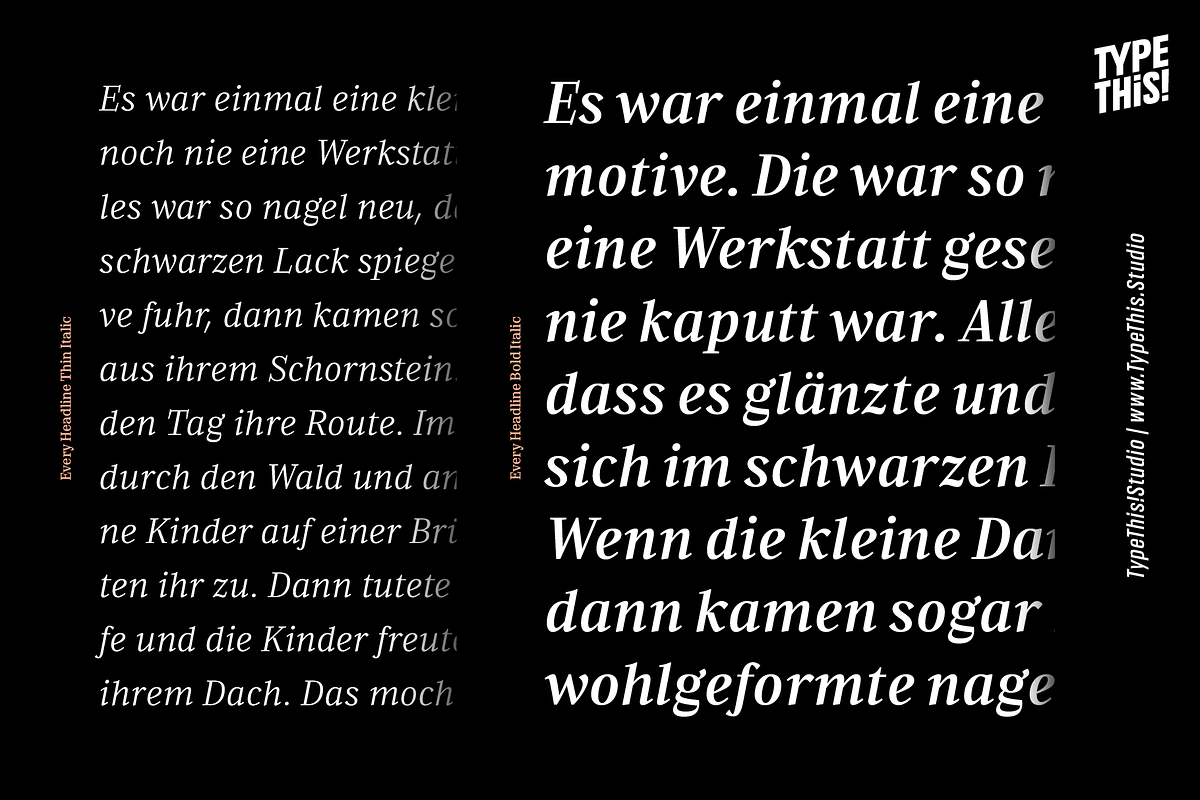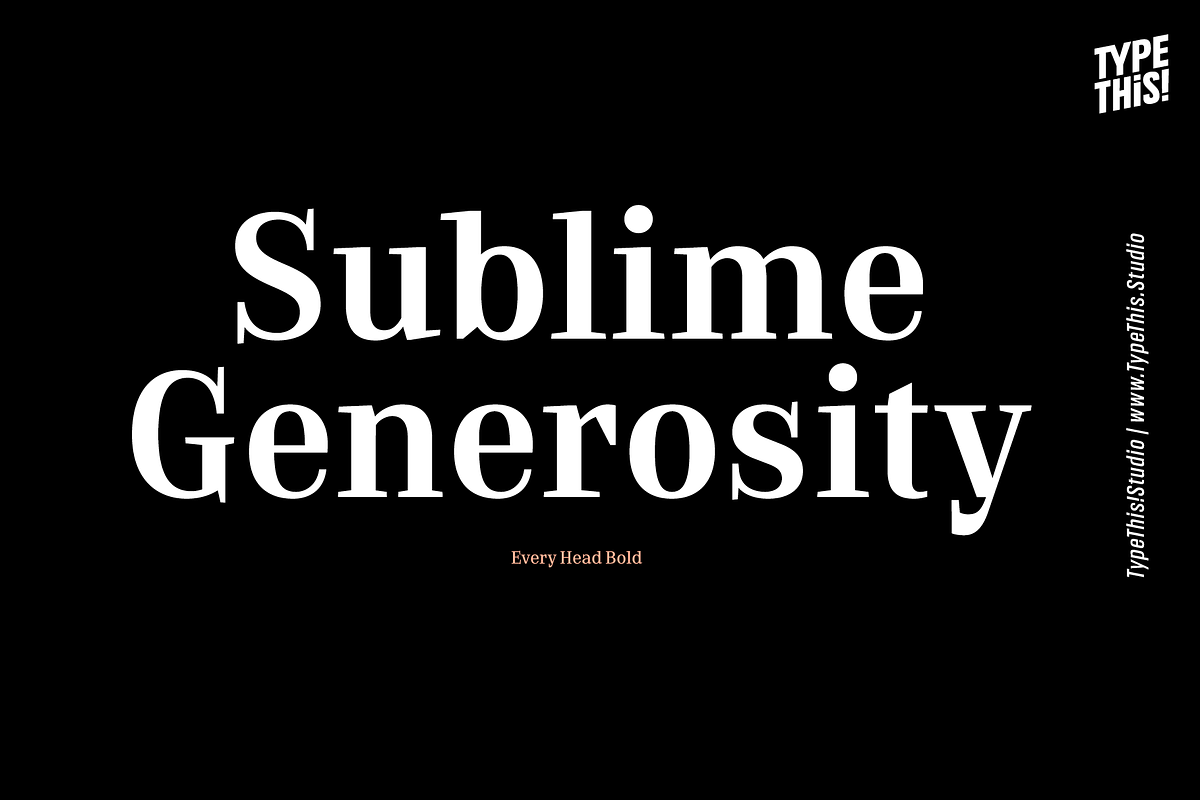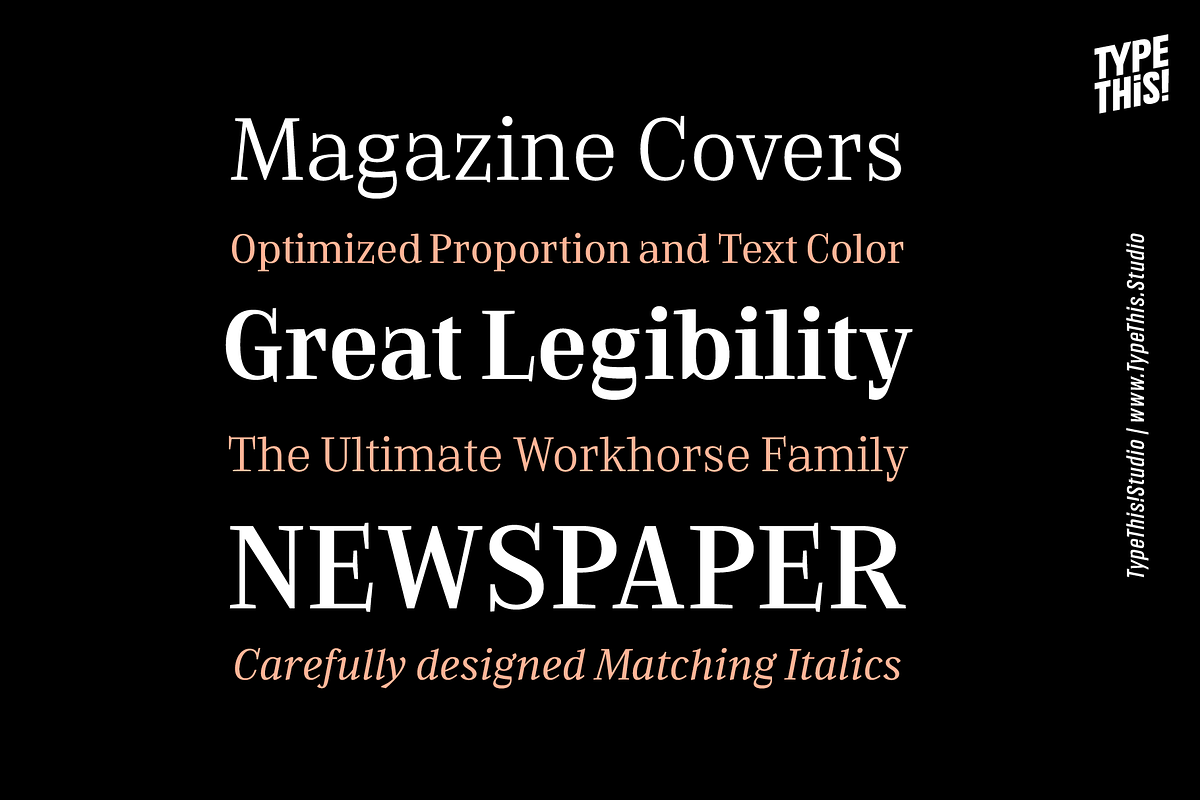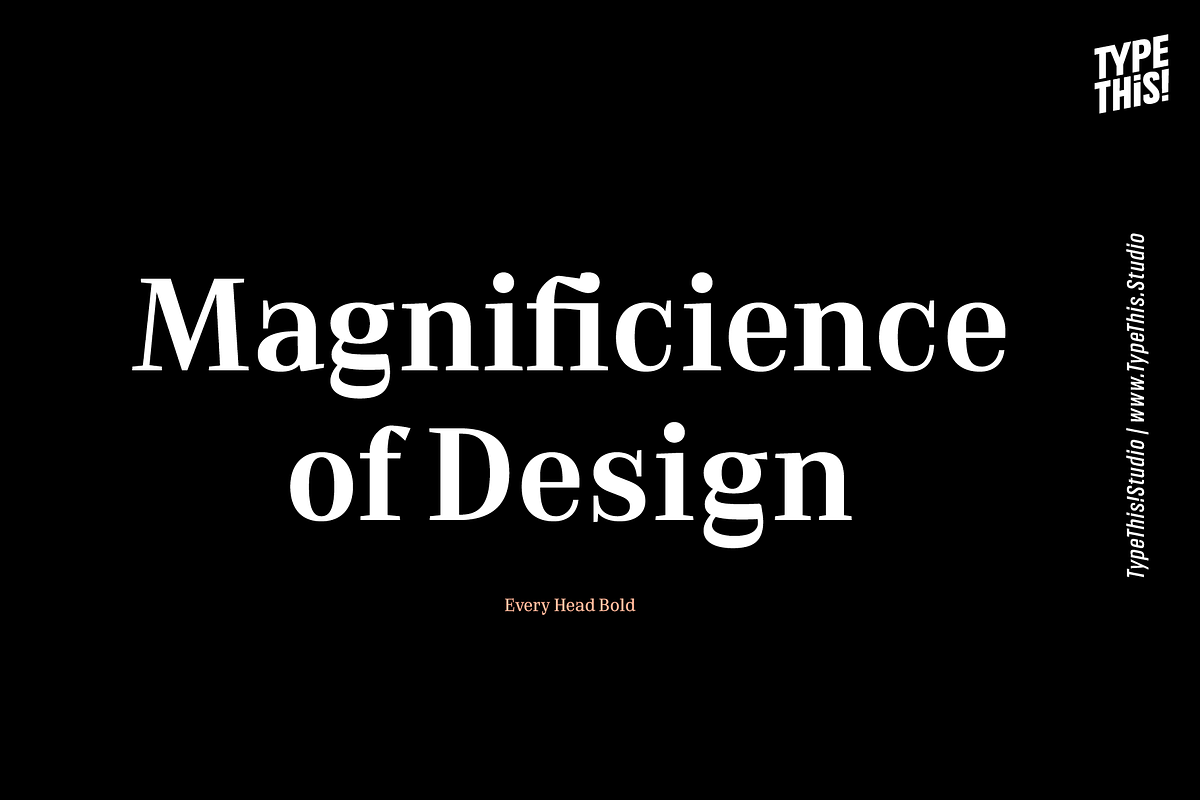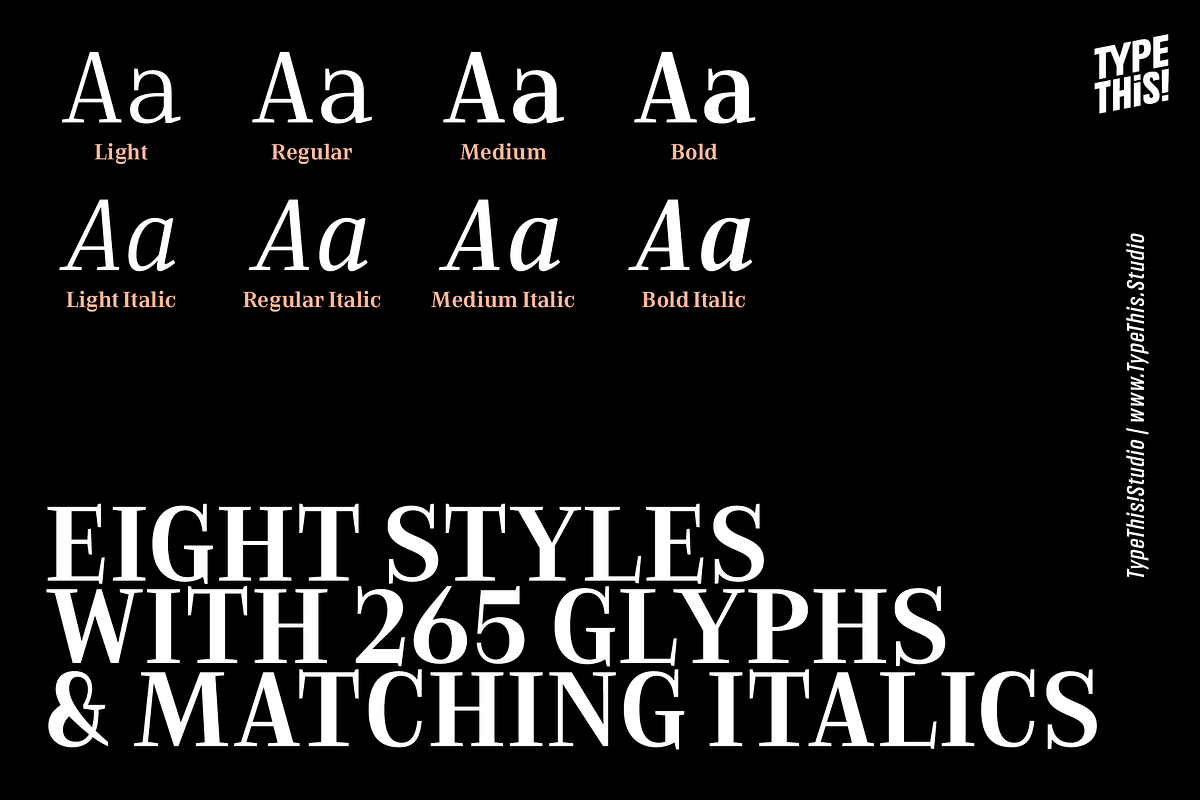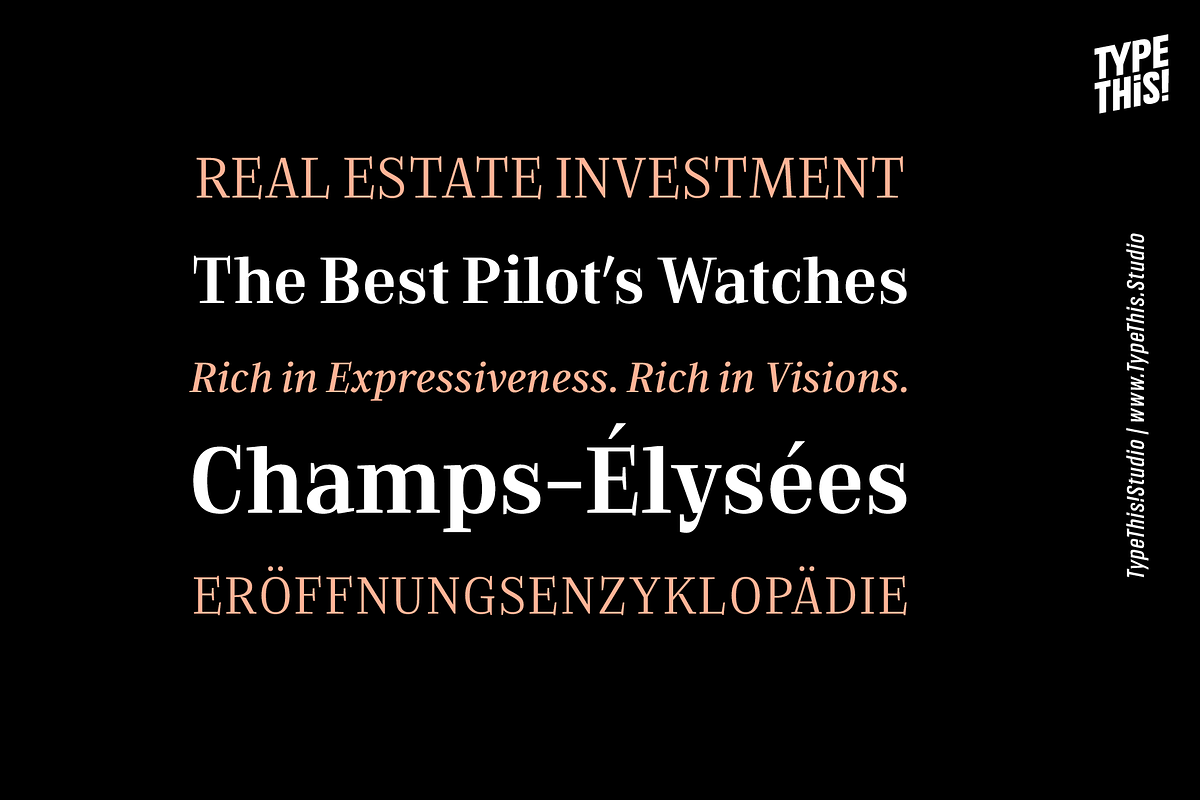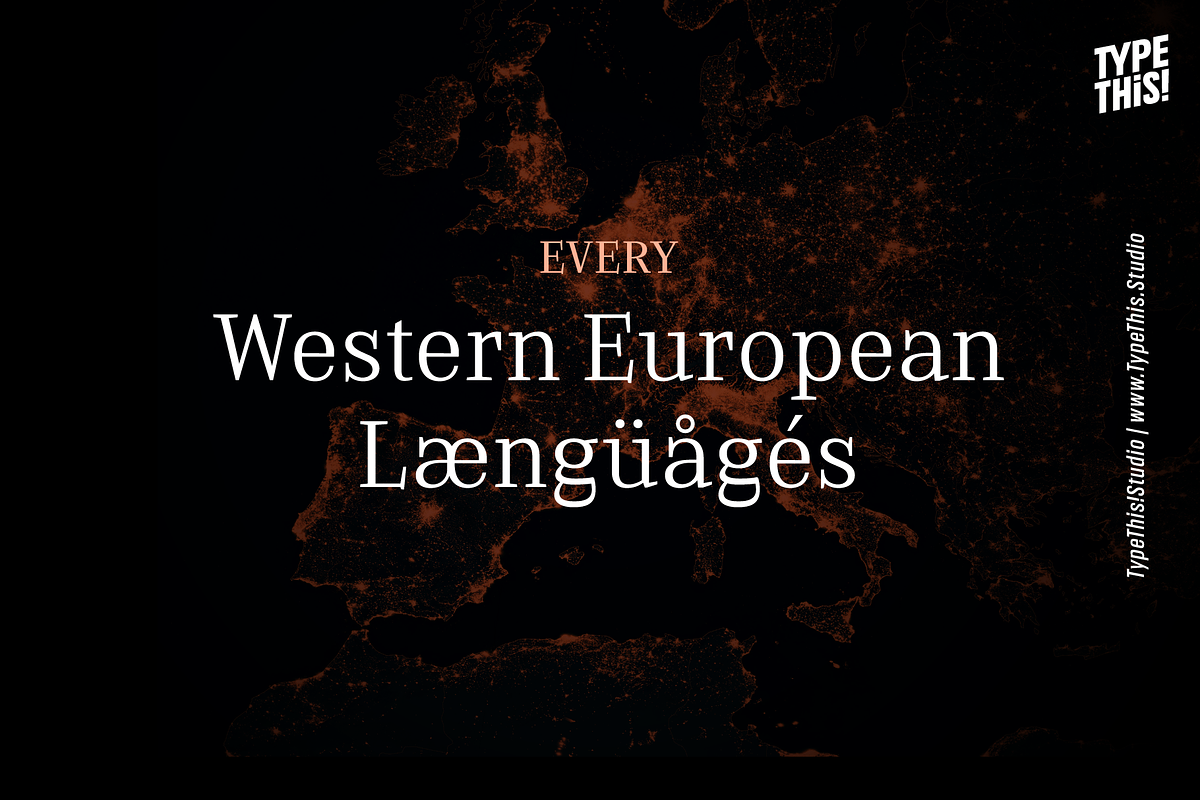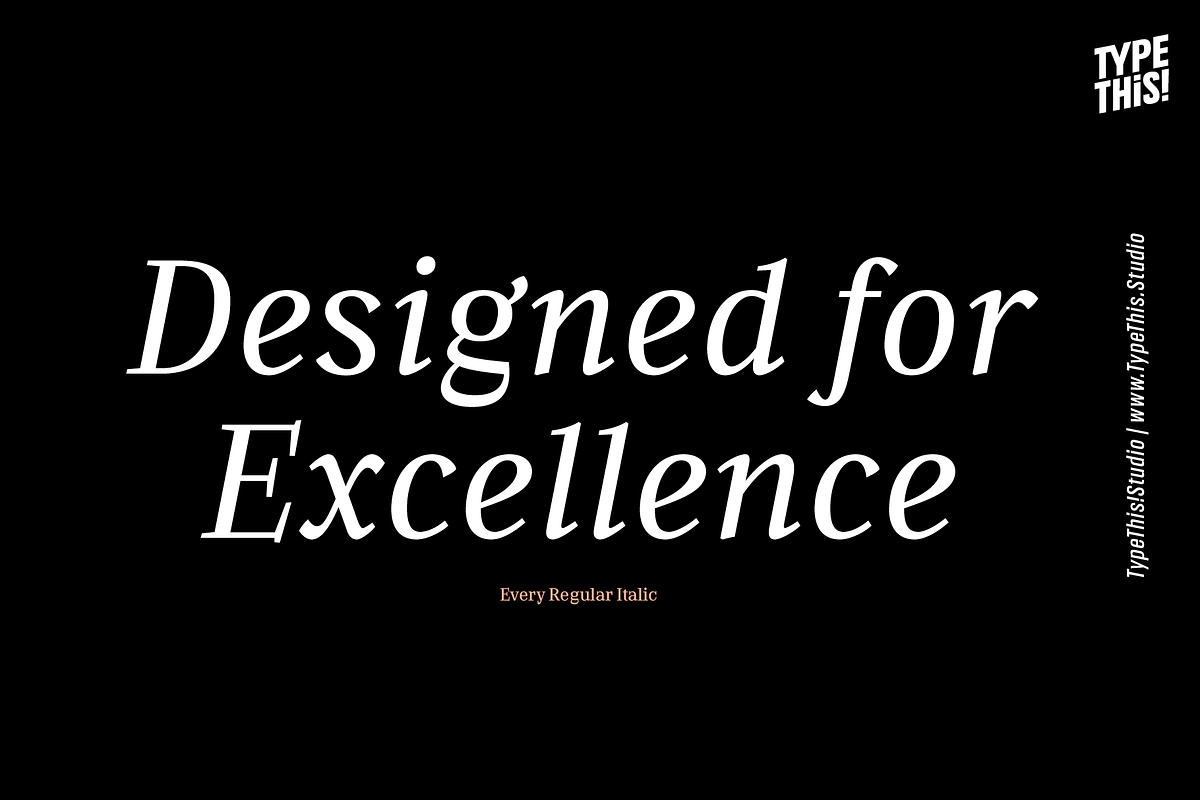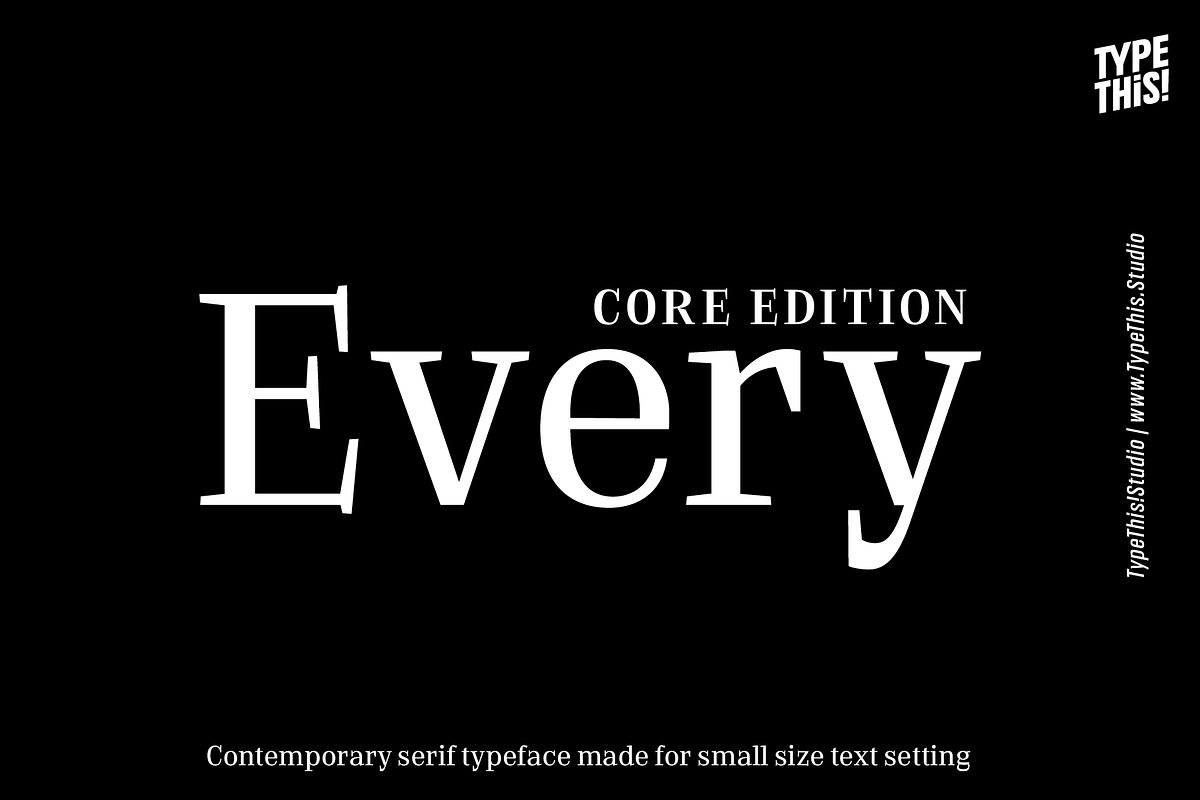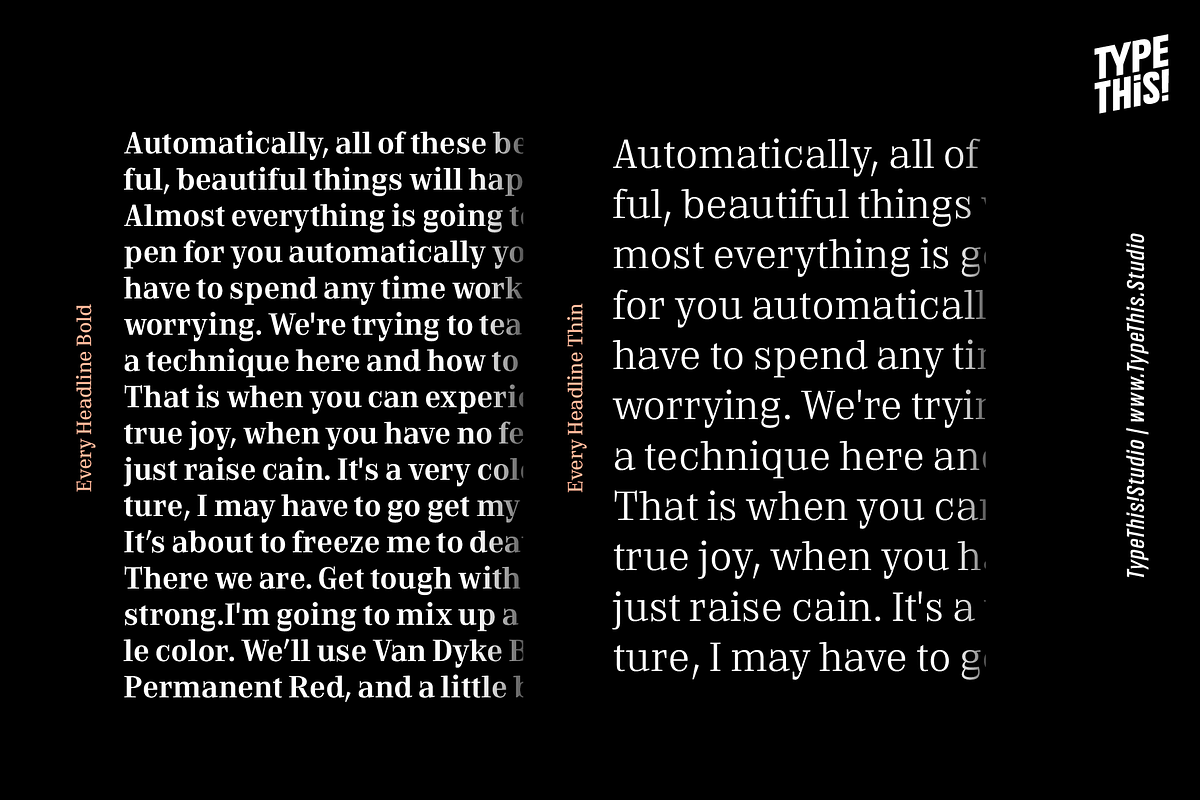
Every Core
EVERY is designed to be the most valuable typography equipment in your repertoire!
It immediately reveals its true greatness and grandeur. Its sublime generosity, expressive aesthetics and unique presence underscore its image befitting its status.
This version covers all the essentials of Every
- 265 Characters
- 8 Styles, including True Italics
- Western European Language Support